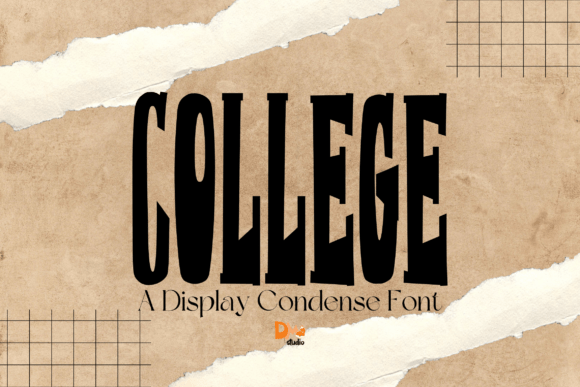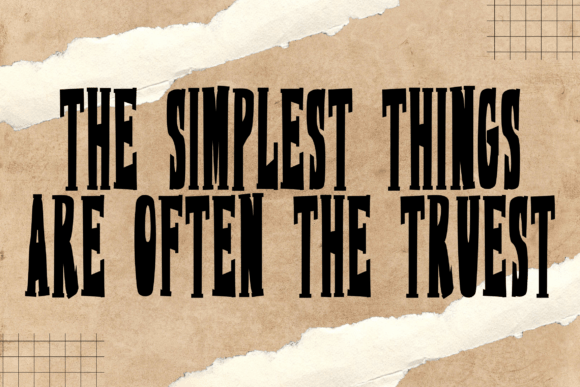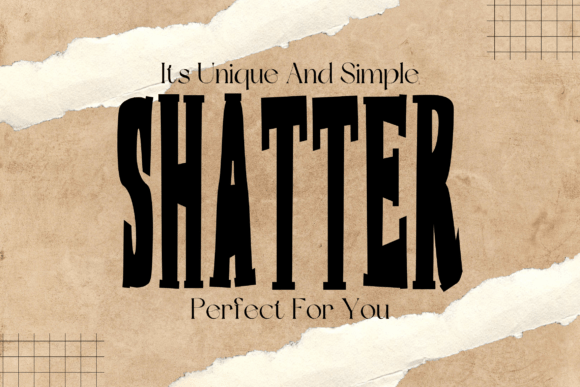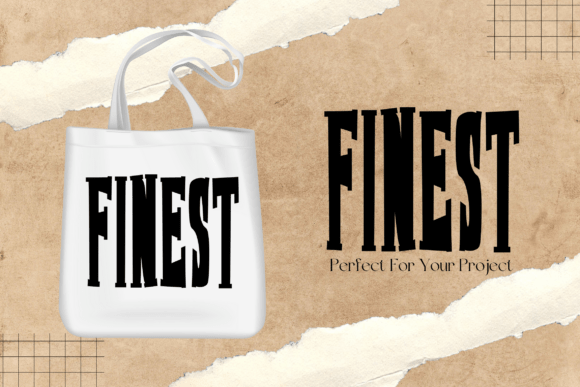
Condense College Font
About the Condense College Font
Make a bold statement with Condense College Font, a powerful and memorable font. Exuding athletic elegance, the Condense College Font is a dynamic, collegiate-style typography that commands attention. With its lean, tightly packed letter structure, this typeface is the MVP when it comes to sports branding, university logos, and varsity team insignias. Adorning apparel, emblazoning banners, or enhancing academic initiatives – it’s as versatile as it is aesthetically pleasing. Its robust structure breathes life into striking headlines, draws visual interest on merchandise, and makes digital designs holler old-school academia. The Condense College Font delivers not just typography, but also the solid, vintage feel of the classic collegiate experience.
Condense College Font Usage Examples
Condense College Font Example